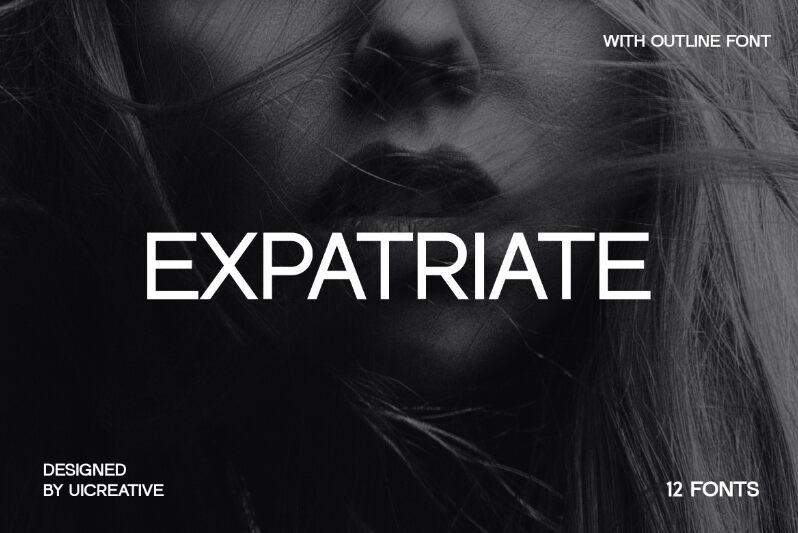
EXPATRIATE Regular
Expatriate font by UI Creative is a geometric sans serif typeface whose letters have a structured, balanced, and refined aesthetic. The font draws influence from modernist design movements as seen by its clean lines. Thanks to balanced proportions in the character set, Expatriate appears ordered and professional regardless of the context it’s used in.
Though this is essentially a free sans serif font with all uses typical for such fonts, Expatriate can breathe life into designs centered around international relations or connected to ex-patriots. Hence ideas include diplomatic event posters, world-wide business cards, magazine covers related to finance/economy etc., or perhaps ambient/environmental imagery.